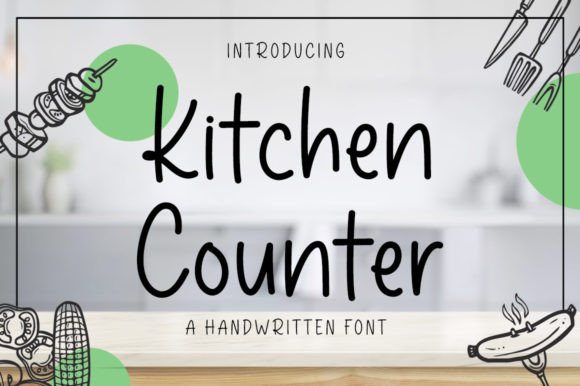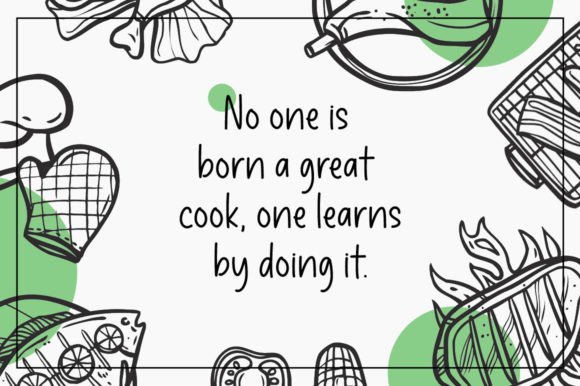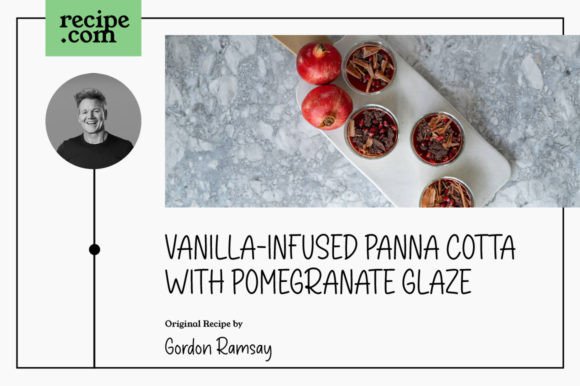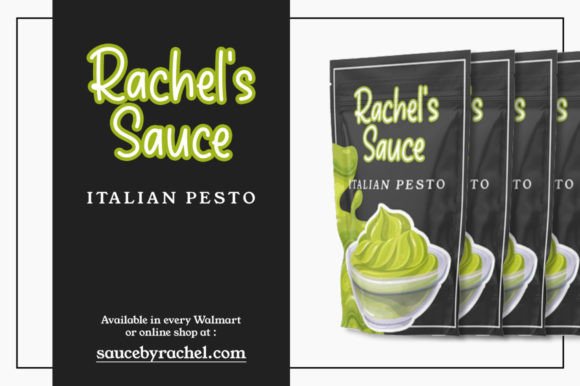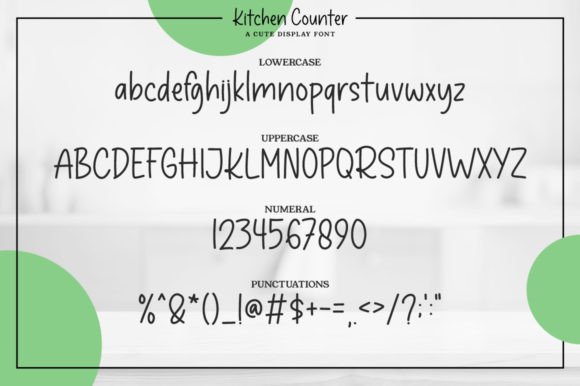
About Kitchen Counter Font
Kitchen Counter is a whimsical and engaging handwritten font that brings a sense of playfulness and creativity to a wide range of design projects. With its unique and customized appearance, this font is a versatile tool that can be used to add a personal touch to various creative endeavors. Whether you’re designing invitations, crafting thank-you cards, composing inspirational quotes, creating friendly greeting cards, developing memorable logos, or designing professional business cards, Kitchen Counter offers a delightful and distinctive style that sets your work apart from the ordinary.
One of the standout features of Kitchen Counter is its ability to convey a sense of warmth and approachability. The font’s handwritten aesthetic gives it a personal and human touch, making it perfect for projects that aim to establish a connection with the audience. Its playful nature adds a touch of whimsy to your designs, making them more engaging and appealing.
Kitchen Counter is particularly well-suited for projects where a customized and friendly appearance is desired. For instance, when designing invitations for a special event, such as a birthday party or a wedding, Kitchen Counter can help set the tone of the celebration by adding a touch of charm and informality. The font’s casual yet stylish look is ideal for conveying a sense of joy and excitement.
Thank-you cards, another common application, benefit from Kitchen Counter’s ability to express gratitude in a warm and heartfelt way. The font’s handwritten style adds a personal note to your thank-you messages, making recipients feel appreciated and valued.
Incorporating Kitchen Counter into your design projects is a surefire way to infuse them with character and creativity. Whether you’re creating inspiring quotes to motivate and uplift, designing greeting cards to convey warm wishes, or developing logos and business cards to represent your brand, this font lends itself beautifully to a wide array of applications.
What sets Kitchen Counter apart is its capacity to add a sense of individuality to your work. Its handwritten quality gives the impression that each letter and character was carefully crafted by hand, making your designs feel unique and one-of-a-kind.
In summary, Kitchen Counter is a font that invites creativity, fosters a sense of connection, and adds a personal touch to your design projects. With its versatility and ability to convey warmth and approachability, it is a valuable asset in your design toolkit, enabling you to bring a touch of whimsy and charm to every project you undertake.